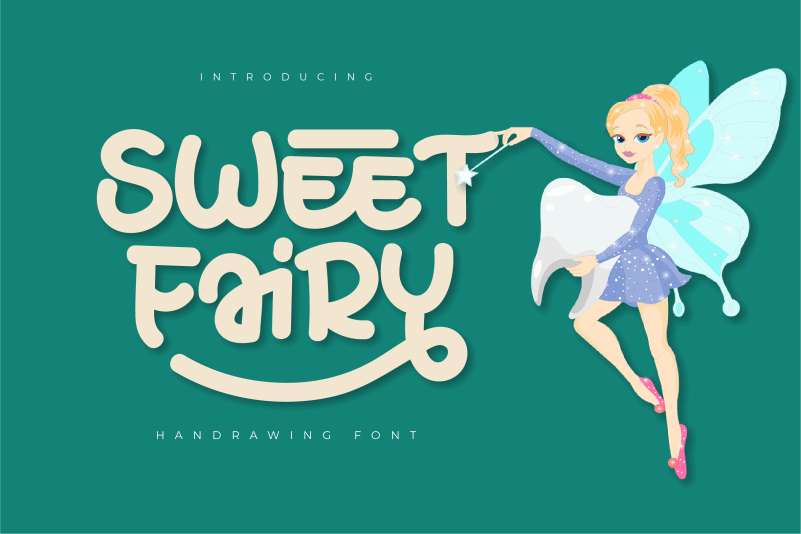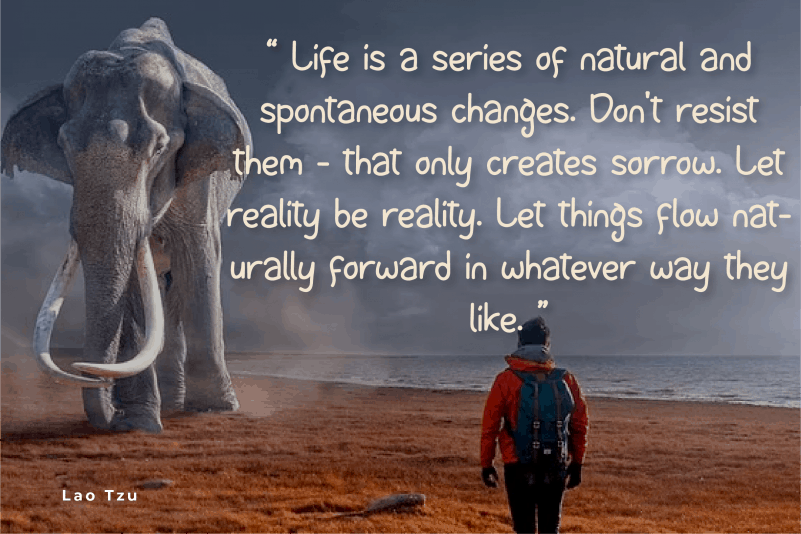
Sweet Fairy Display Font
Sweet Fairy Display Font is a sweet and friendly display font. Its natural and unique style makes it incredibly fitting to a large pool of designs. The only limit is your imagination!